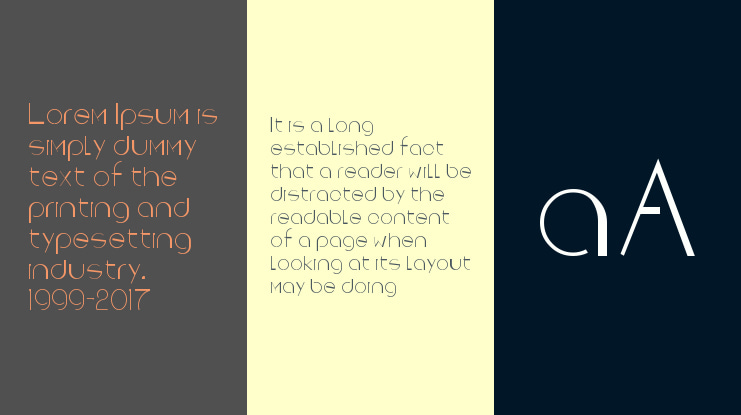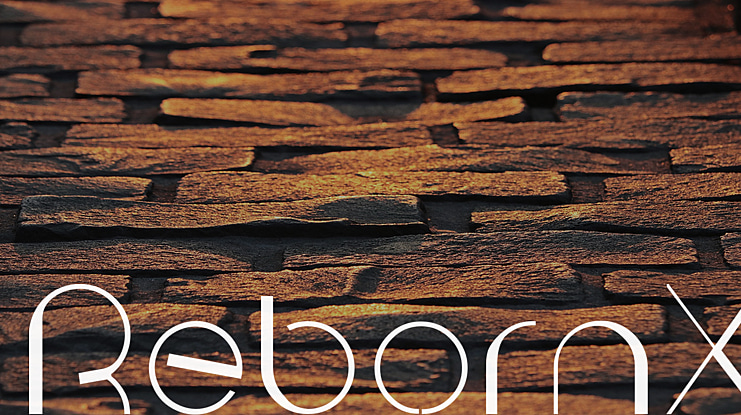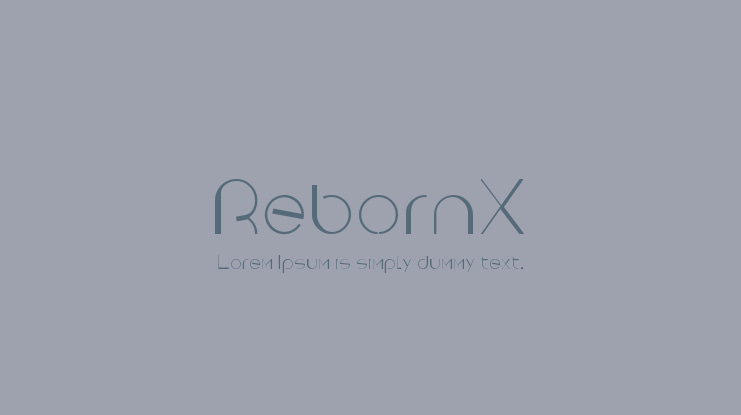
RebornX Font
I have just started my design career!this is one of my new font which is going to replace my old font called Space1 created in 2011 when I was studying GD.
All characters have been recreated and now are readable on screen. hope you guys will like it. Ill keep update more characters for this font within the next few weeks,if you have any good idea or suggest pls share with me.